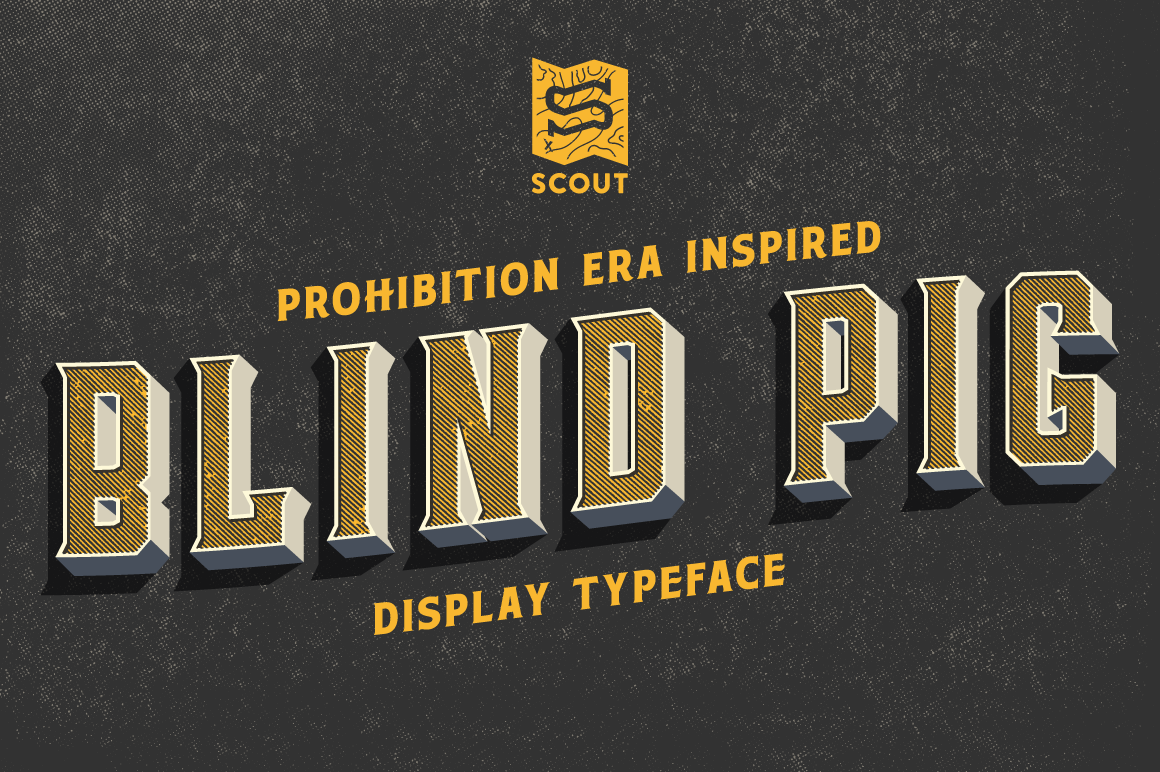
Blind Pig Display Font
Blind Pig is inspired by prohibition era typography—a "blind pig" was another name for a speakeasy. The fonts include letters, numerical characters, and punctuation (shown in preview images). Please don't hesitate to contact me if there are any issues. Enjoy!